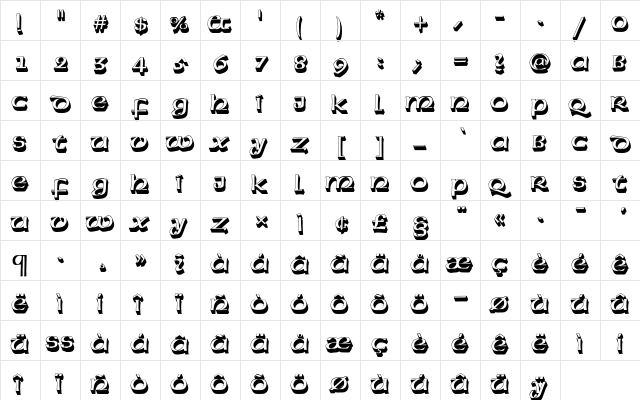
American Uncial D Sh1 Regular
Design Context for American Uncial D Sh1 Typeface
American Uncial D Sh1 is a composed and adaptable typeface that performs quietly and consistently across a wide range of design contexts.